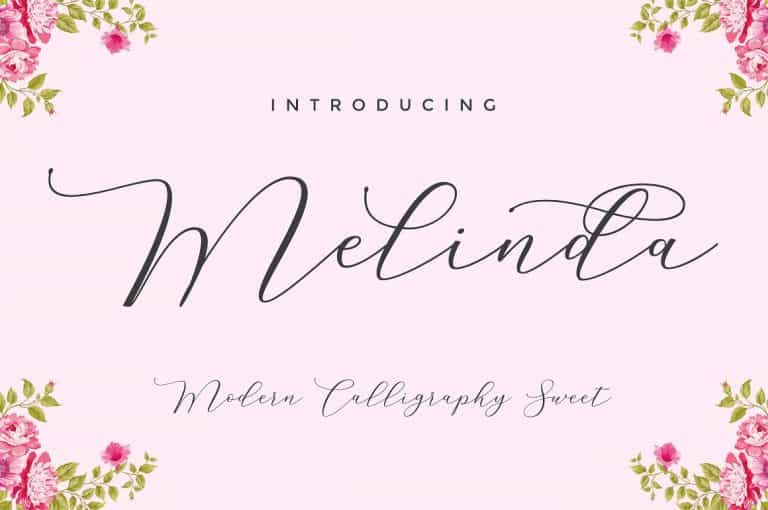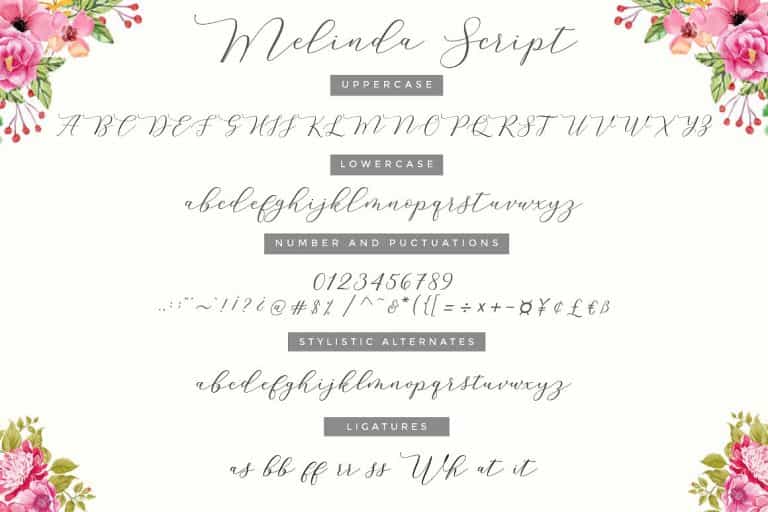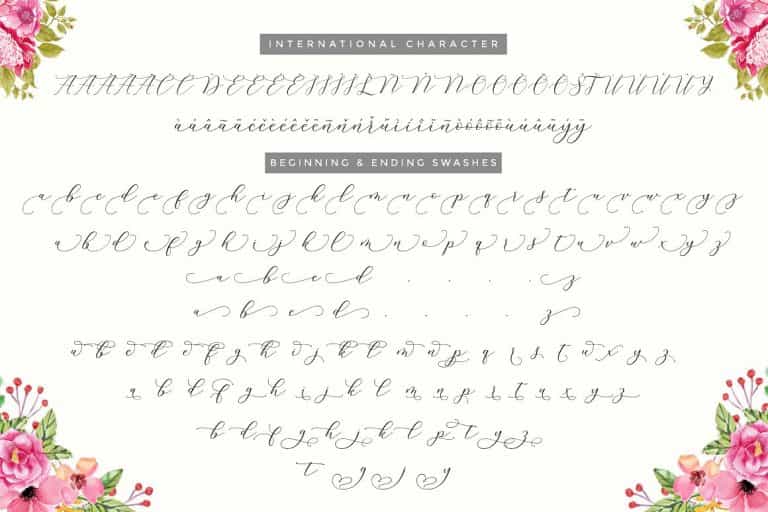
Introducing Melinda Font. Melinda is a pretty and fascinating calligraphy handwriting font. You can easily tell from the scratches that give a real and modern look. The font appears very nice and is packed with the best characters. you can apply this font in your design product line like invitation, mockup, embossed, branding card and others.